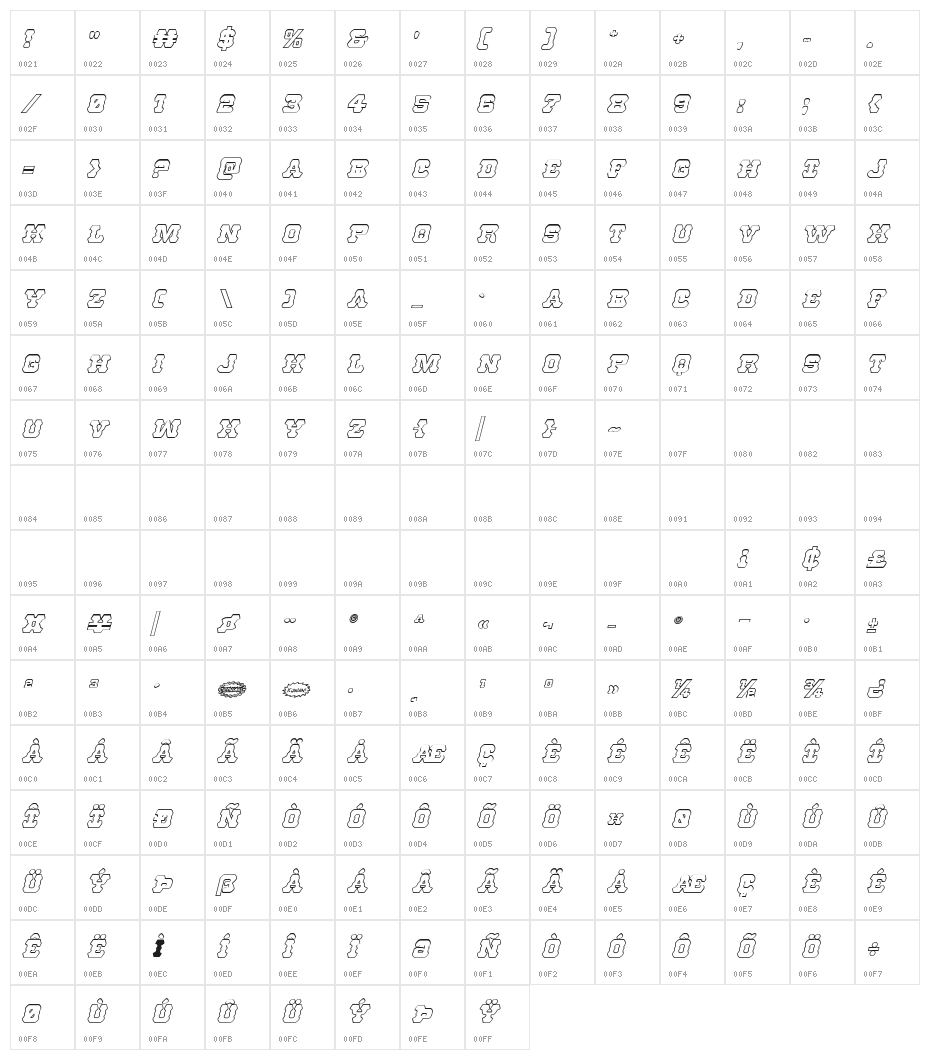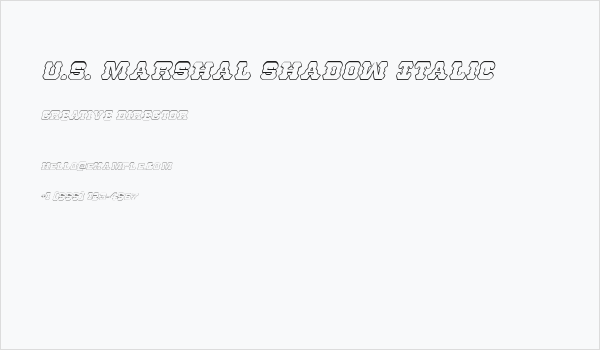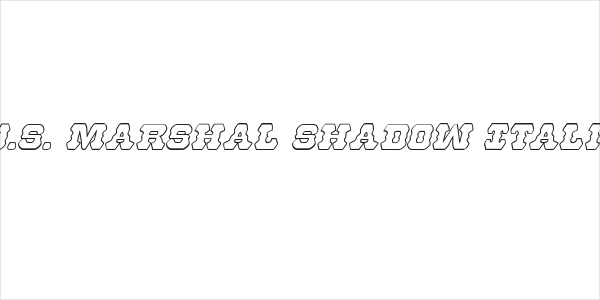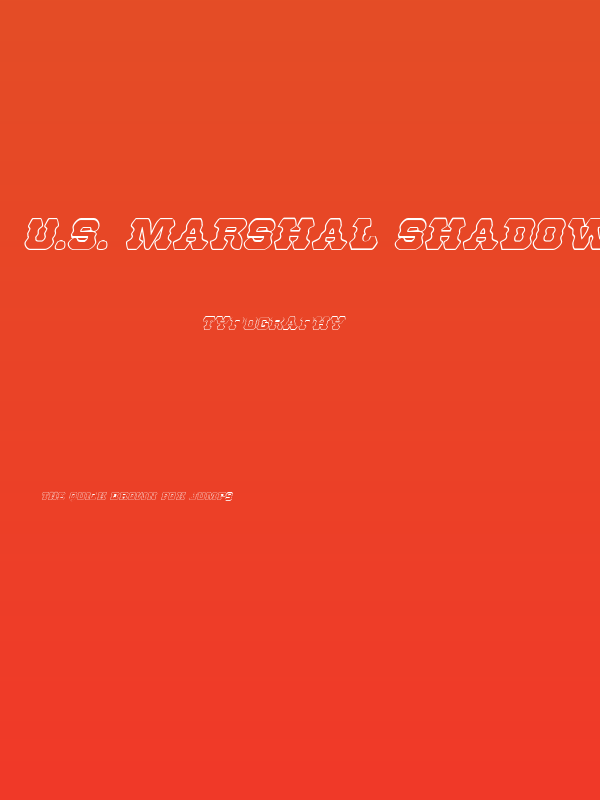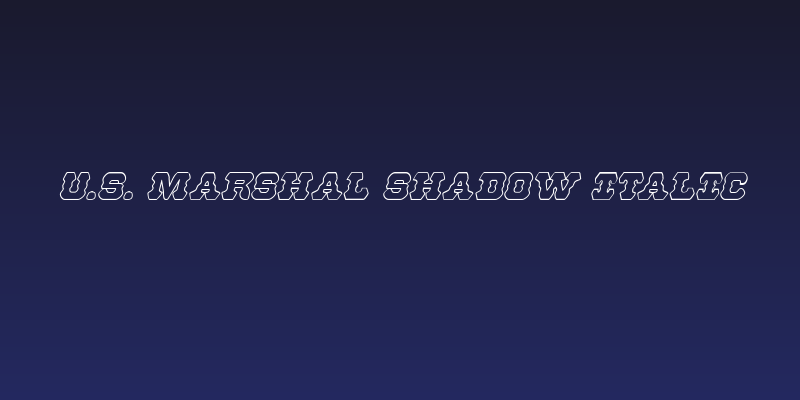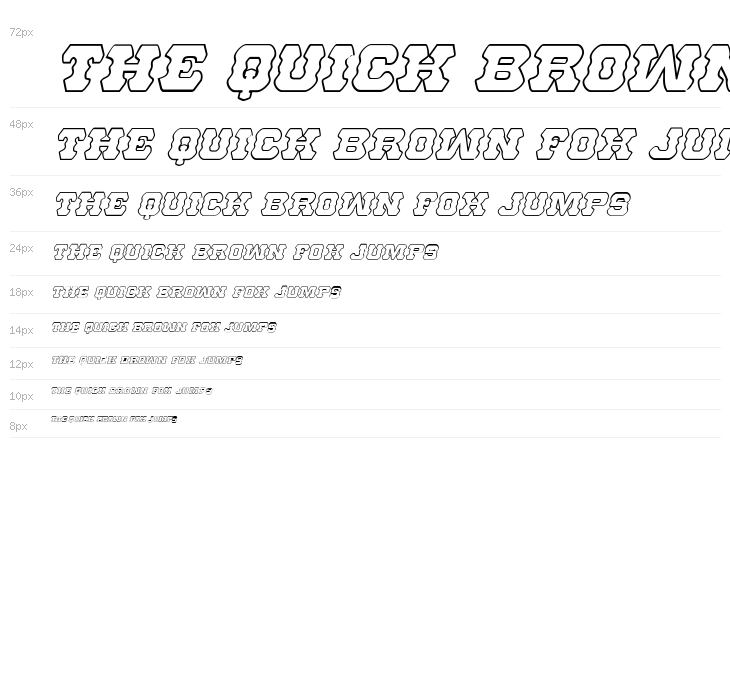
U.S. Marshal Shadow Italic Font
U.S. Marshal Shadow Italic Description
This font features a bold, shadowed design with a strong presence. The characters are outlined, giving them a three-dimensional effect that stands out on any page. The uppercase and lowercase letters maintain a consistent style, with sharp angles and a robust structure. The numerals and special characters follow the same design principles, ensuring uniformity across all text. This font's unique shadow effect adds depth and dimension, making it ideal for eye-catching designs.
| Proposed Projects | Ideal for posters, logos, headlines, and any design requiring a bold statement. |